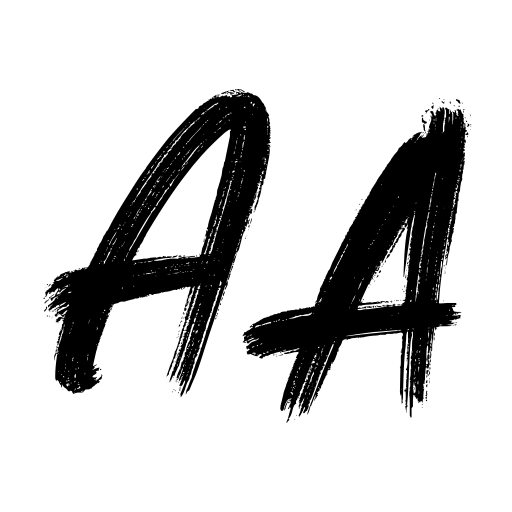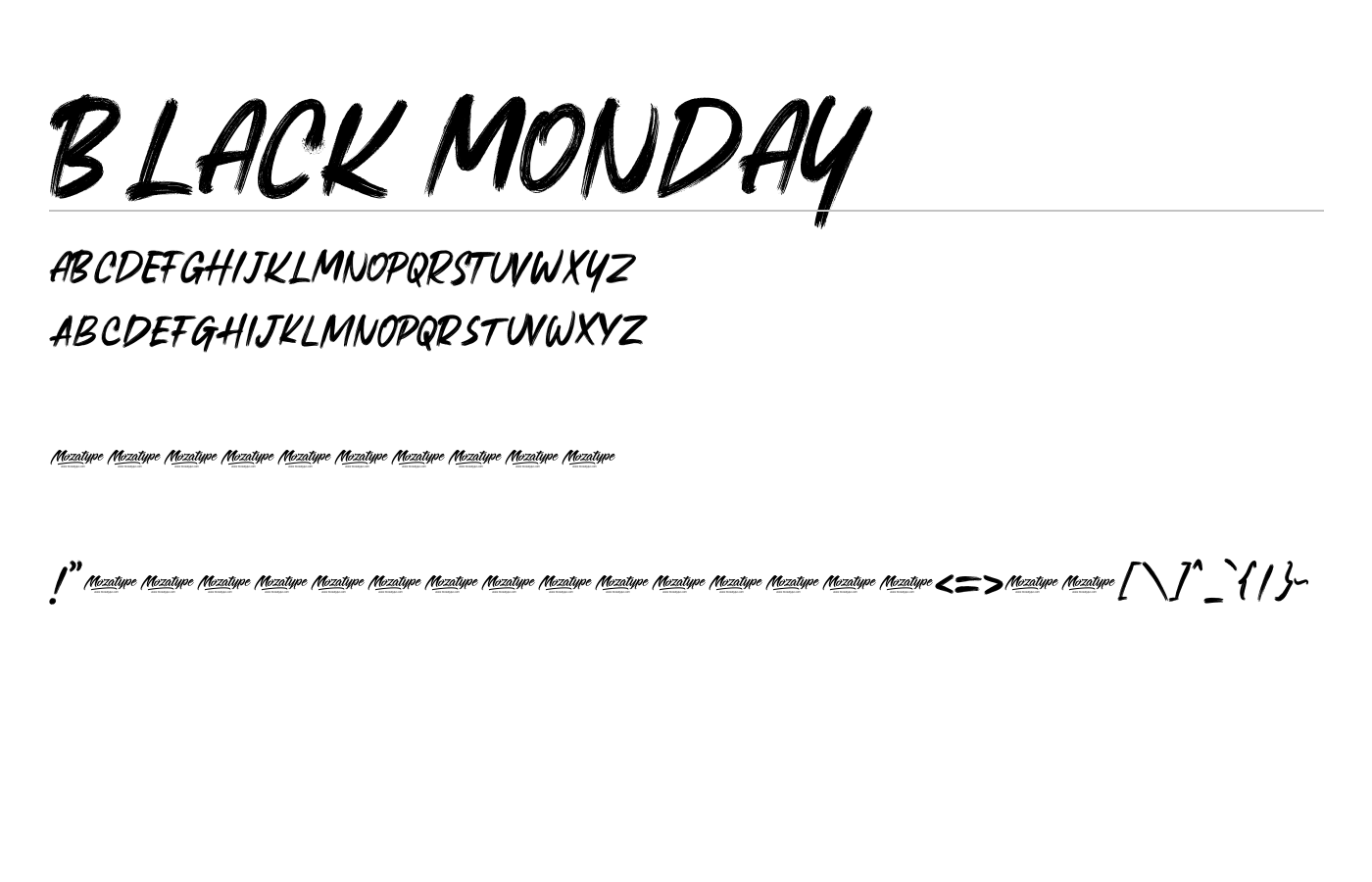
BLACK MONDAY is a bold, brush script font with a dynamic and energetic personality. Its textured strokes and slightly irregular edges give it a handcrafted, expressive feel, ideal for creating eye-catching headlines and logos with a modern, artistic vibe. This font works well in creative branding, posters, and packaging where a lively, informal touch is desired.
BLACK MONDAY Font
About BLACK MONDAY Font